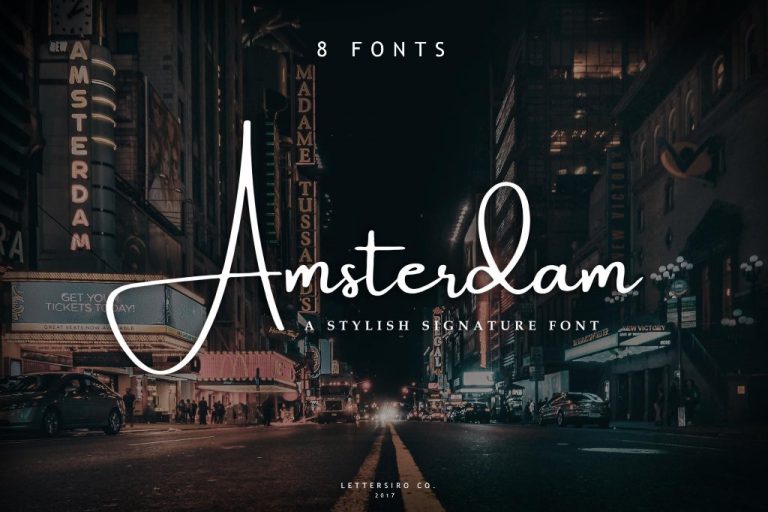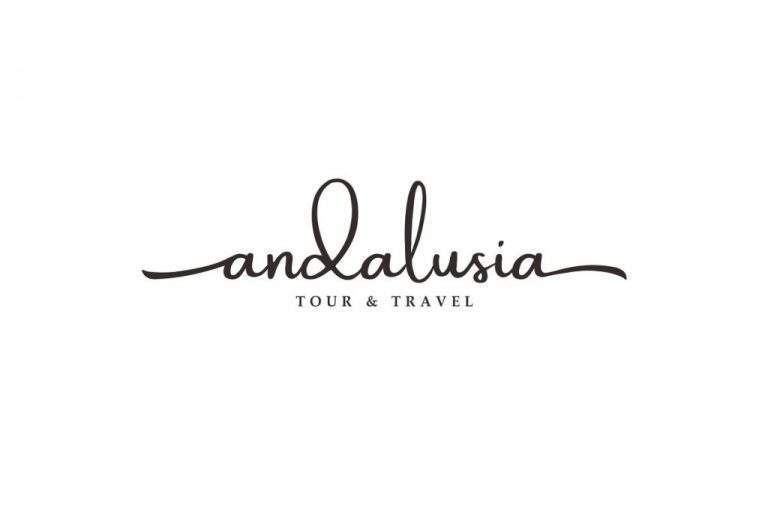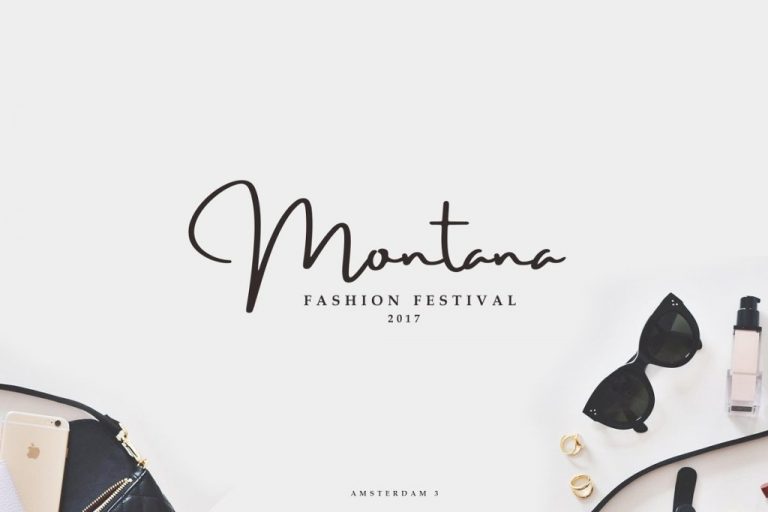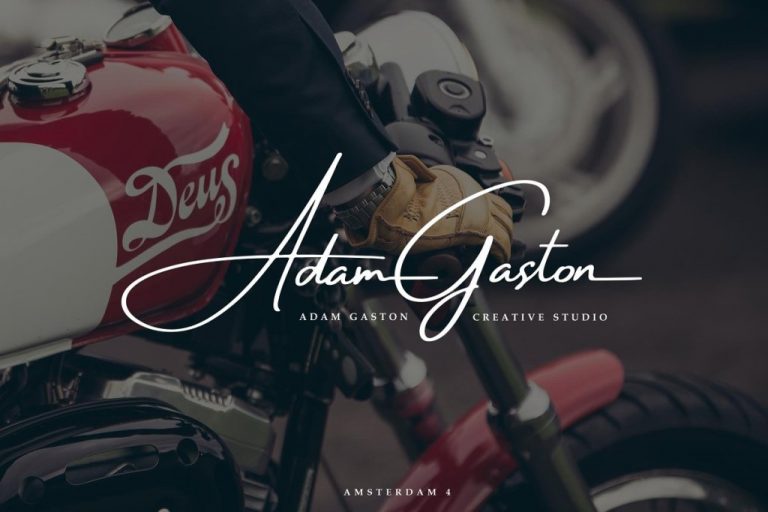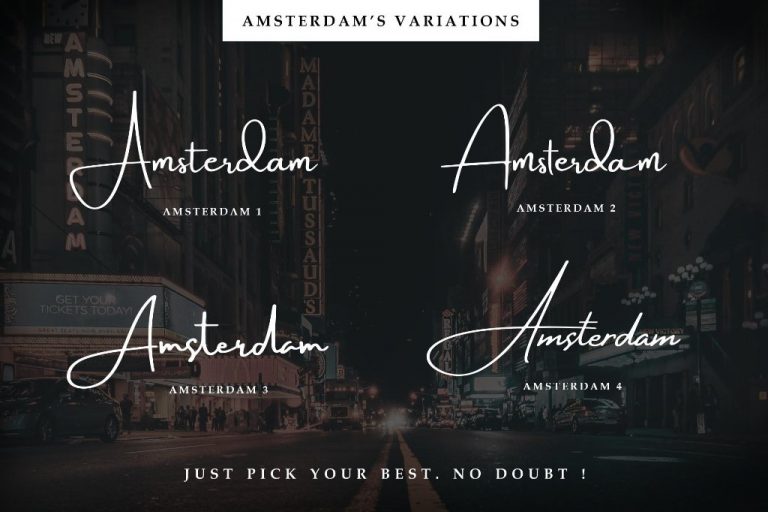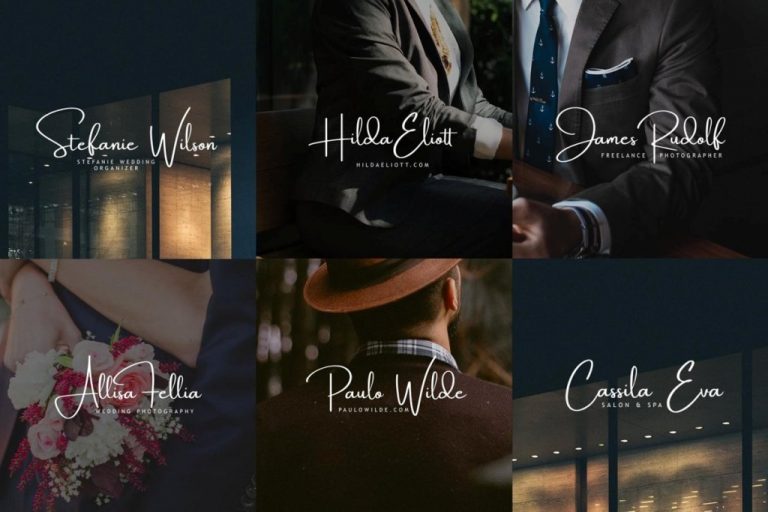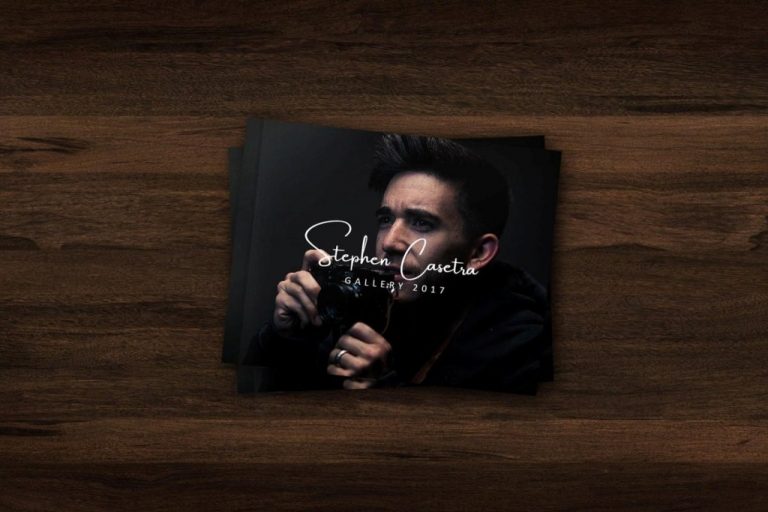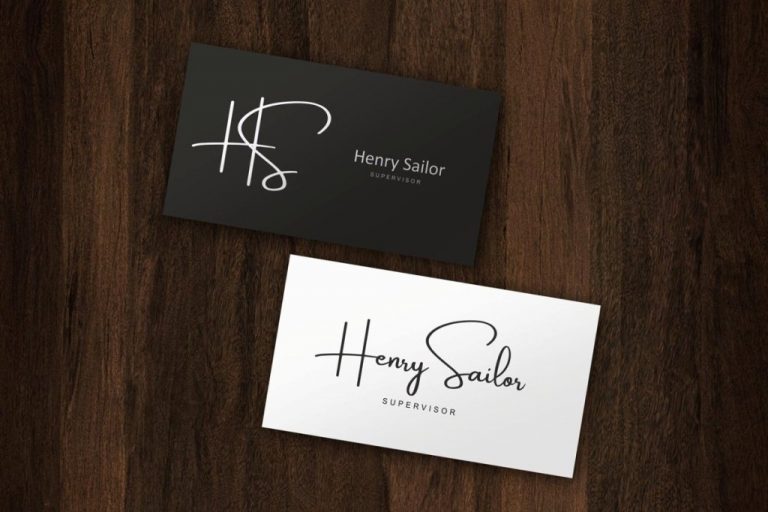
Amsterdam 8 Fonts
Amsterdam Font – The Best-Selling Signature Typeface with Global Recognition
Refined, sophisticated, and effortlessly stylishβ€”Amsterdam Font is the pinnacle of signature typefaces. Designed for luxury branding, high-end packaging, and elegant editorial design, this best-selling font has made a global impact.
With 8 stunning styles, Amsterdam offers unmatched versatility, making it the top choice for designers, brands, and professionals worldwide. Its graceful curves and fluid strokes bring a sense of prestige and exclusivity, ensuring that every project stands out.
Why Choose Amsterdam Font?
• πŸ’Ž Versatile & Timeless – Perfect for logos, personal branding, invitations, beauty & fashion, business signatures, and upscale designs.
Whether you're crafting a luxury brand, an exclusive product, or an elegant marketing campaign, Amsterdam Font guarantees a timeless, high-end aesthetic.